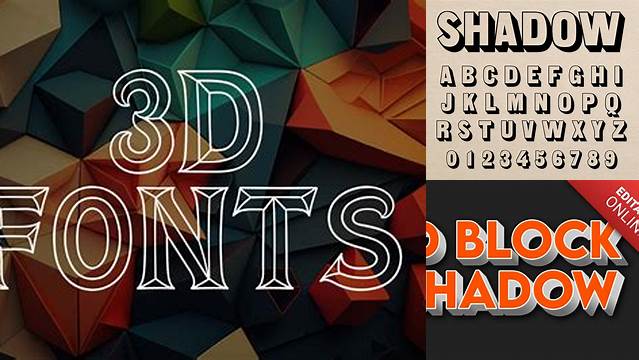
Free 3D Shadow Fonts: Download & Elevate Your Designs
Hey design enthusiasts! Ever stumbled upon those super cool, eye-catching designs that just pop with depth and dimension? Chances are, they're rocking some awesome 3D shadow fonts. These aren't just your average text styles; they bring a whole new level of visual interest, making your headlines, logos, and creative projects stand out from the crowd. And guess what? You don't have to break the bank to get your hands on them! In this ultimate guide, we're diving deep into the world of free 3D shadow fonts, showing you exactly where to find them, how to use them effectively, and why they're such a game-changer for any design project. So, buckle up, guys, because we're about to explore a treasure trove of downloadable goodness that will seriously level up your design game. Let's get started!
What Exactly Are 3D Shadow Fonts?
Alright, first things first, let's get on the same page about what we're even talking about when we say '3D shadow fonts'. Unlike the flat, two-dimensional fonts you see everywhere, these bad boys are designed to give the illusion of depth and three-dimensionality. They achieve this by incorporating a shadow element, which can be subtle or pronounced, usually extending downwards or to the side. This shadow creates a sense of space between the text and its background, making it appear as if the letters are lifting off the page or screen. Think of it like shining a light on your text β the shadow is the natural consequence of that light. This effect is super versatile and can lend a retro vibe, a modern sleekness, or even a futuristic feel, depending on the font's style and the shadow's implementation. They're fantastic for grabbing attention, adding a touch of professionalism, or just injecting some serious personality into your typography. This depth makes them incredibly impactful for headlines, titles, and any text that needs to make a statement. The magic lies in how the shadow is rendered β is it a sharp, crisp line, or a soft, diffused blur? Is it a solid block of color, or a gradient? These variations all contribute to the overall mood and aesthetic of the font. Understanding these nuances helps you choose the perfect 3D shadow font for your specific design needs, ensuring your message is not only readable but also visually compelling. Itβs all about creating that extra layer of visual appeal that flat fonts simply canβt replicate without significant extra effort.
Why Use 3D Shadow Fonts in Your Designs?
So, why should you even bother with these kinds of fonts? Itβs simple, really: they make your designs pop. In the crowded digital landscape, grabbing and holding attention is crucial. A well-chosen 3D shadow font can instantly elevate your project from ordinary to extraordinary. It adds a professional polish, giving your work a sophisticated edge that clients and viewers will notice. Whether you're crafting a logo for a new startup, designing a poster for an event, or laying out a social media graphic, these fonts provide that extra bit of flair that makes text memorable. They can create a sense of depth and realism, making your designs more engaging and immersive. Imagine a website banner with a bold title; a 3D shadow font can make that title the undisputed focal point, drawing the user's eye directly to the most important information. Furthermore, they can evoke specific moods and styles. A font with a long, dramatic shadow might scream vintage or retro, while a clean, sharp shadow could suggest modern minimalism or even a futuristic aesthetic. This stylistic versatility means you can find a 3D shadow font to match virtually any brand identity or project theme. They are particularly effective in print design, where they can mimic real-world shadow effects and create a tactile sense of depth on paper. In digital media, they can add a dynamic quality, especially when used in animations or interactive elements. The psychological impact of depth in typography is significant; it can make text feel more tangible and important. It's like giving your words a physical presence, making them more impactful and commanding. Plus, let's be honest, they just look cool. They add a unique character and personality that can make your typography truly unforgettable. So, if you're looking to add a professional touch, enhance visual interest, and make your text stand out, 3D shadow fonts are definitely your go-to.
Exploring Different Styles of 3D Shadow Fonts
The world of 3D shadow fonts is incredibly diverse, offering a vast array of styles to suit any aesthetic you can dream up. We're not just talking about one type of shadow here, guys. You've got your classic, subtle drop shadows that give a gentle lift, perfect for maintaining readability while adding a hint of dimension. Then there are the bold, exaggerated shadows that create a dramatic, almost cartoonish effect, ideal for grabbing attention in posters or headlines. Some fonts feature inline shadows, where the shadow is integrated directly into the letterforms, giving a layered, 3D block effect. Others might have a more stylized shadow, perhaps in a contrasting color or with a gradient fill, adding extra visual pop. You'll find fonts that mimic realistic lighting, casting soft, diffused shadows that suggest a specific light source. Conversely, some fonts opt for sharp, hard-edged shadows, giving a more graphic and defined look. Think about fonts inspired by retro signage, often featuring extruded, bevelled 3D effects with deep, colorful shadows. Then there are the modern, minimalist interpretations, which might use a very thin, sharp shadow to create a clean, sophisticated depth. Some shadow fonts are designed to look like they're made of metallic materials, with chrome-like reflections and shadows adding to the realism. Others might have a distressed or textured shadow, giving a grungy or vintage feel. The sheer variety means you can tailor your typographic choice precisely to your project's needs. For example, a children's book might use a playful, rounded font with a bright, chunky shadow, while a tech company's branding might opt for a sharp, geometric font with a sleek, monochromatic shadow. Don't forget about extruded fonts, which are essentially 3D fonts where the depth is created by extending the letterforms themselves, often accompanied by a shadow. Exploring these different styles is key to understanding how to best leverage the power of 3D shadow typography to communicate your message effectively and aesthetically. Itβs like having a whole toolkit of visual effects at your disposal, each with its own unique strengths and applications.
Tips for Using 3D Shadow Fonts Effectively
Alright, you've downloaded some killer free 3D shadow fonts. Now, how do you make sure they look amazing and not, well, a bit messy? It's all about finesse, guys. First rule: don't overdo it. A subtle shadow can add elegance, while a shadow that's too heavy or clashes with your background can make text hard to read and look amateurish. Think about contrast. Ensure there's enough difference between your text color and the shadow color, and between the shadow color and the background, for maximum legibility. If your shadow is dark, make sure it doesn't blend into a dark background. Consider the direction and length of the shadow. Does it make sense in the context of your design? A shadow falling from the top left often feels natural, mimicking a light source from that direction. Experiment with the shadow's opacity. Sometimes, a semi-transparent shadow looks much more sophisticated than a solid one. If you're using a font with a built-in shadow, pay attention to how it interacts with other elements. Sometimes, you might need to adjust spacing (kerning and leading) to prevent letters or lines from overlapping awkwardly due to the shadow's depth. For web design, be mindful of file sizes. Complex 3D fonts can sometimes be heavier, so consider using them for headers or key elements rather than body text to maintain fast loading times. Test your font choices across different devices and screen sizes to ensure they remain clear and impactful everywhere. Remember, the goal is to enhance, not distract. The shadow should complement the text and the overall design, adding depth and visual interest without compromising readability or aesthetic coherence. It's a balance, and finding that sweet spot is key to mastering these impactful typefaces. Use them strategically for maximum impact!
Optimizing 3D Shadow Fonts for Web and Print
When you're using these awesome 3D shadow fonts, whether it's for your website or a printed flyer, you've got to think about how they'll perform in each medium. For web use, guys, readability is king. A super complex, multi-layered 3D font with a massive shadow might look incredible on a large desktop screen, but it could become a blurry mess on a small mobile device. So, prioritize fonts with clear, defined shadows, or consider using them primarily for large headings and titles where they won't be shrunk down too much. You might also want to look for web-optimized versions or consider how they'll render using CSS. Techniques like text-shadow
in CSS can create shadow effects, but they might not replicate the exact look of a true 3D font file. Sometimes, the best approach is to save your text as an image (like a PNG with transparency) if the font is crucial for branding and doesn't render well otherwise, though this isn't ideal for SEO. For print, you have a bit more freedom. The richness and detail of a 3D shadow font can really shine on high-quality paper. Ensure your resolution is high enough (300 DPI is standard) so that the details of the shadow and letterforms are crisp and clear. When designing for print, think about the paper stock and the printing process itself. A glossy finish might make shadows appear deeper, while a matte finish could give a softer look. Consider the bleed and trim areas to ensure your text doesn't get cut off. Itβs also important to embed the font file correctly in your document (like a PDF) when sending it to a professional printer. This guarantees that the printer uses the exact font you intended, preserving all the stylistic nuances, including those crucial shadow effects. The goal is to ensure the font delivers its intended visual impact consistently, regardless of whether it's viewed on a screen or held in hand. Always preview your designs in their final intended format β be it a PDF proof or a live website preview β to catch any rendering issues before they go public.
Licensing Considerations for Free Fonts
This is a biggie, folks, and something that trips up a lot of people: the licensing for 'free' fonts. Just because you downloaded a font without paying for it doesn't automatically mean you can use it however you want, especially for commercial projects. It's super important to understand the difference between free for personal use (often called 'demo' or 'trial' versions) and free for commercial use. Personal use typically means you can use the font for your own projects, like a personal blog, invitations for a birthday party, or school assignments. Commercial use, on the other hand, means using the font in projects that generate income β think logos, business branding, marketing materials, merchandise, websites for clients, or anything you sell. Many websites that offer free fonts, like DaFont, will clearly state the license associated with each font. It might be listed as 'Personal Use Only', 'Shareware', 'Freeware', or have a link to the full license agreement. Always click that link and read it! Sites like Font Squirrel specifically curate fonts that are free for commercial use, which makes them a safer bet for professional work. Google Fonts are generally open-source (often under the SIL Open Font License), meaning they're free for pretty much any use, commercial or personal. If you're ever in doubt, it's best to err on the side of caution. You can try contacting the font designer directly to ask for clarification or purchase a commercial license if one is available. Using a font illegally can lead to copyright infringement issues, which can be costly and damaging to your reputation. So, take a few extra minutes to check the license β it's way better than dealing with potential legal trouble later on. Think of it as part of the design process; understanding the usage rights is just as important as choosing the right typeface.
Enhancing Readability with Shadow Effects
While 3D shadow fonts are undeniably cool, their primary job is still to convey text clearly. So, how do we ensure those snazzy shadows actually help readability instead of hindering it? It's all about strategic application, guys. A well-placed, subtle shadow can actually increase legibility by creating separation between the text and a busy or similarly colored background. Think of it like lifting the text slightly off the background, making it easier for the eye to distinguish the letterforms. For instance, if you have a light-colored text on a white or very light background, a soft, dark shadow can provide just enough contrast to make it pop without looking jarring. Similarly, on a dark background, a lighter shadow can achieve the same effect. The key is subtlety and appropriateness. Avoid excessively long, thick, or multicolored shadows, especially for body text or any text that needs to be read quickly and easily. These styles are generally better suited for large display titles or decorative elements where readability is secondary to visual impact. When choosing a font, consider its inherent design. Some 3D shadow fonts are designed with readability in mind, featuring clear letterforms and balanced shadow effects. Others are more stylized and decorative. For critical text, opt for fonts where the shadow enhances definition rather than obscuring it. Experiment with the shadow's properties if the font allows β adjusting its blur radius, distance, and opacity can make a huge difference. A slightly blurred shadow often looks softer and more natural than a sharp, hard-edged one, which can sometimes create unwanted artifacts or appear too artificial. Ultimately, the goal is for the shadow to act as a subtle cue, guiding the eye and making the text feel more present and distinct, thereby improving the overall reading experience. It's about using depth to add clarity, not confusion.
Final Thoughts: Downloading and Using Free 3D Shadow Fonts
So there you have it, guys! A deep dive into the awesome world of free 3D shadow fonts. We've explored what they are, why they're so effective, where to find them, and how to use them like a pro. Remember the key takeaways: always check the licensing before using fonts commercially, prioritize readability especially for web content, and don't be afraid to experiment with different styles and colors. These fonts offer a fantastic way to add depth, personality, and professional polish to your designs without costing a penny. Whether you're aiming for a retro vibe, a futuristic feel, or just want your headlines to grab attention, there's a free 3D shadow font out there waiting for you. Use them wisely, combine them thoughtfully with simpler fonts, and watch your designs come to life! Happy downloading and even happier designing!